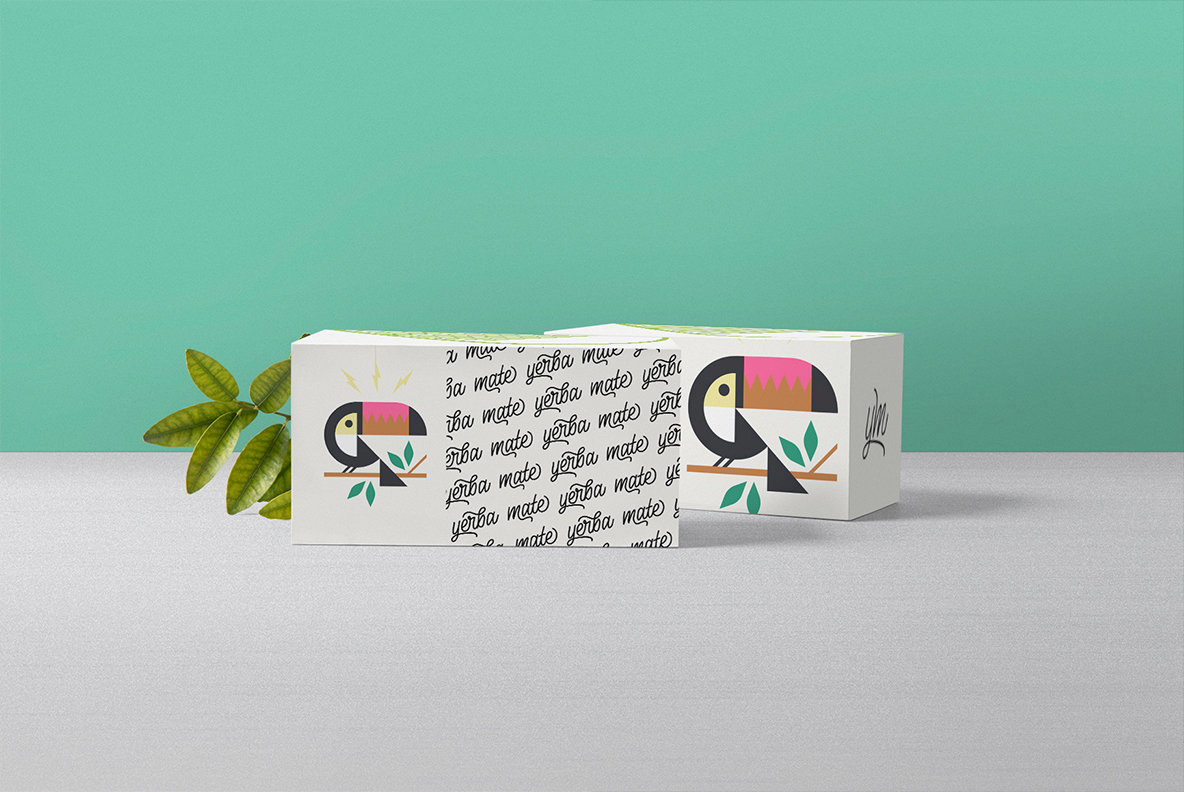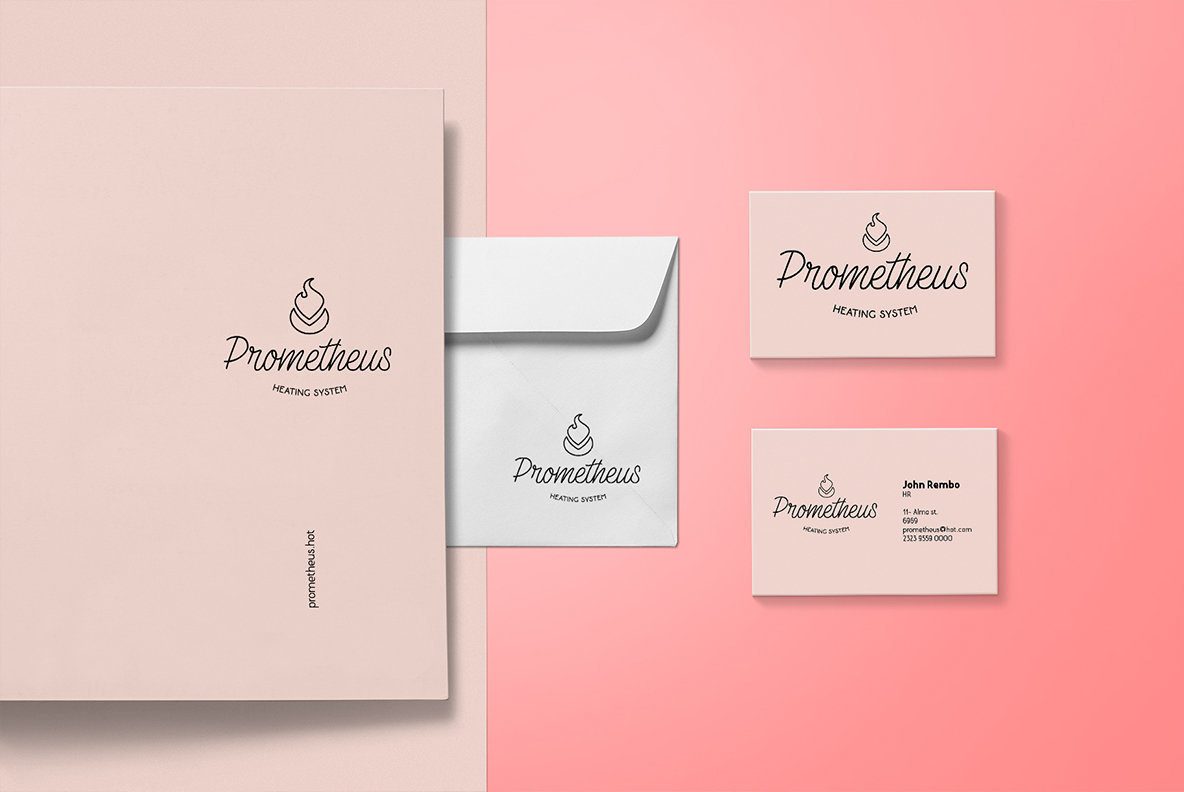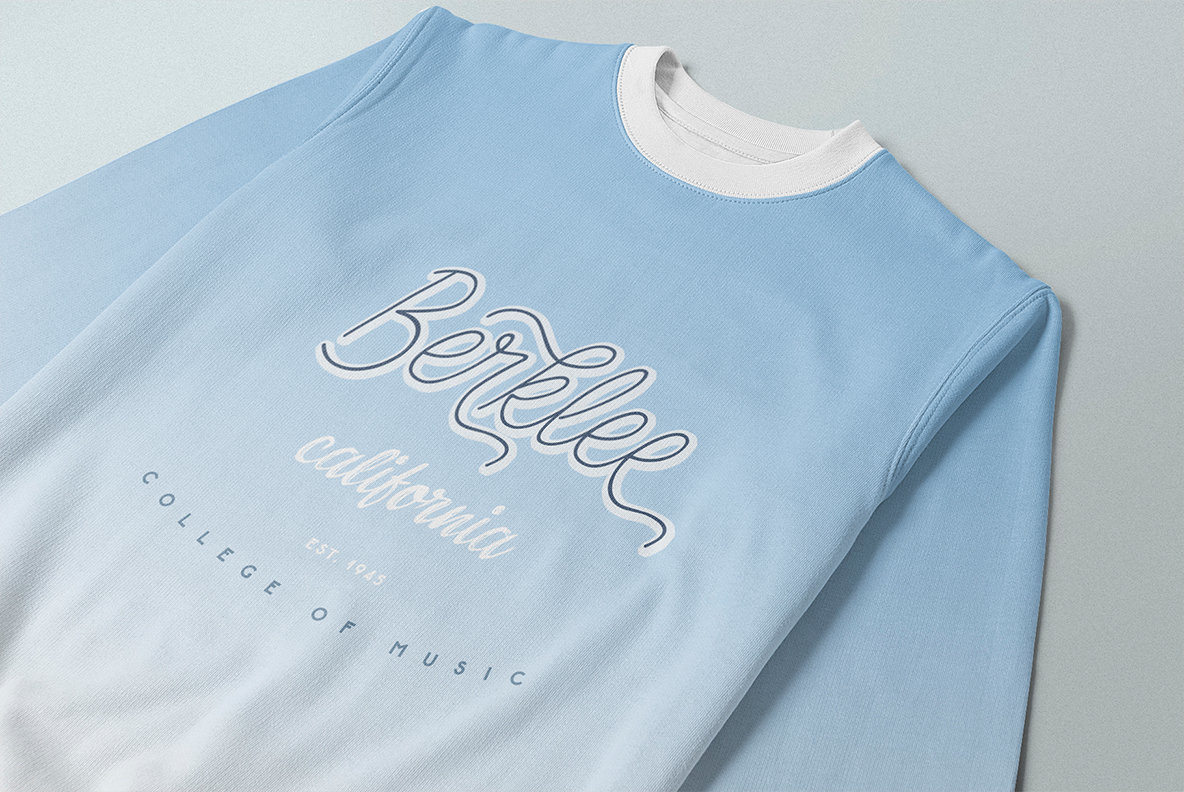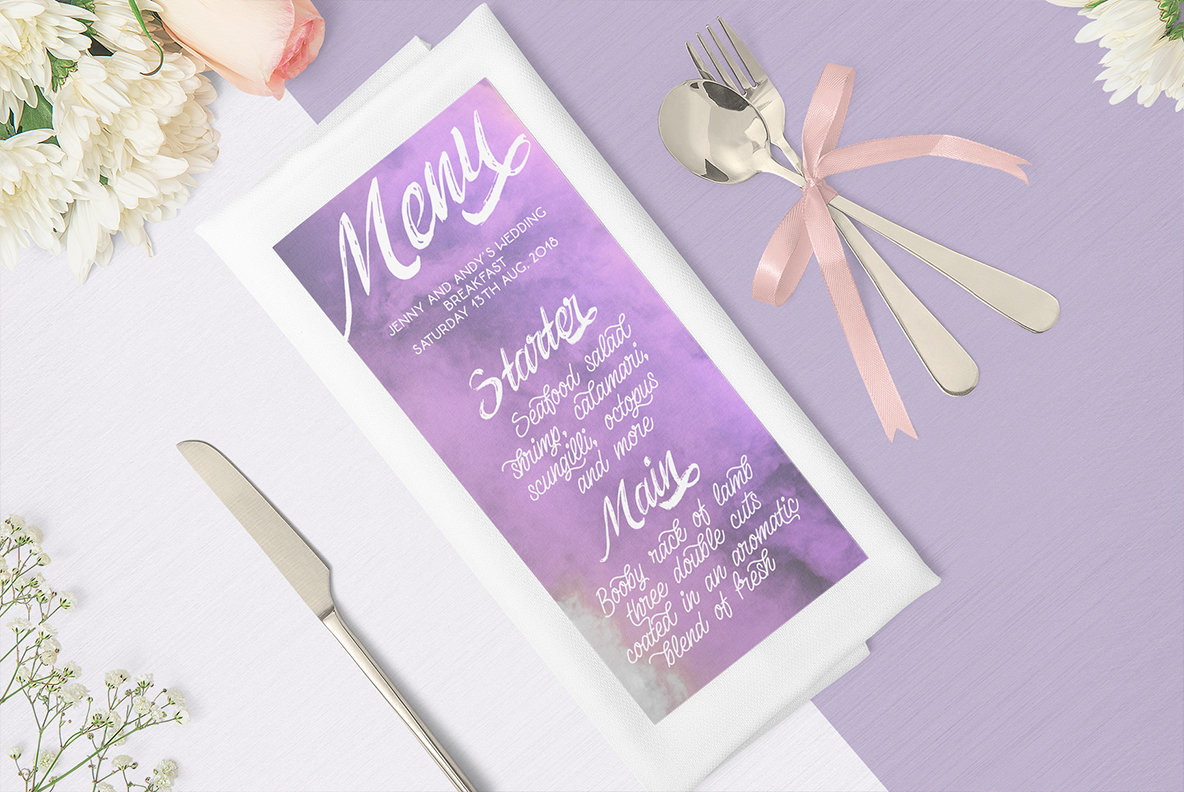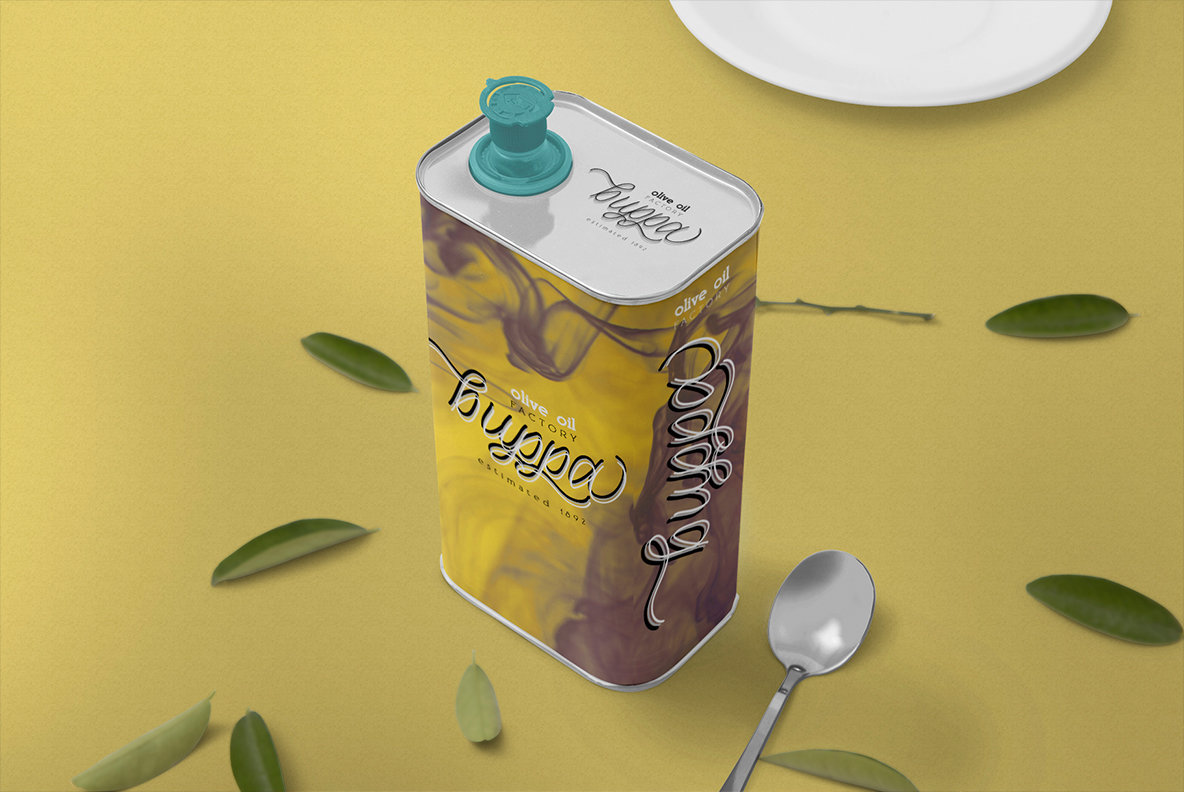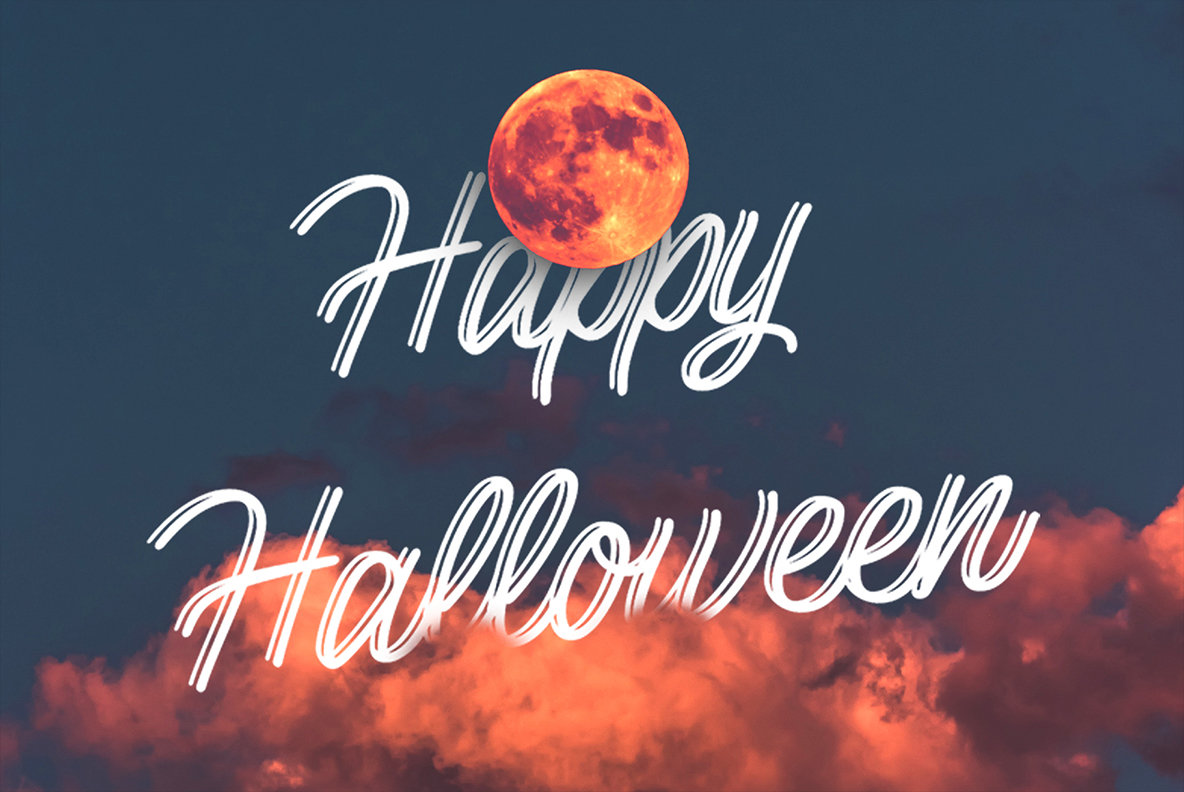
Lento Font
Lento by Etewut Foundry offers a distinctive monoline script that captivates with its elegant simplicity and cheerful nuances. This font presents itself in four engaging styles: display, regular, double, and bold, making it a flexible asset for a variety of design endeavors.Lento: Stylish Monoline Script with Versatile Appeal